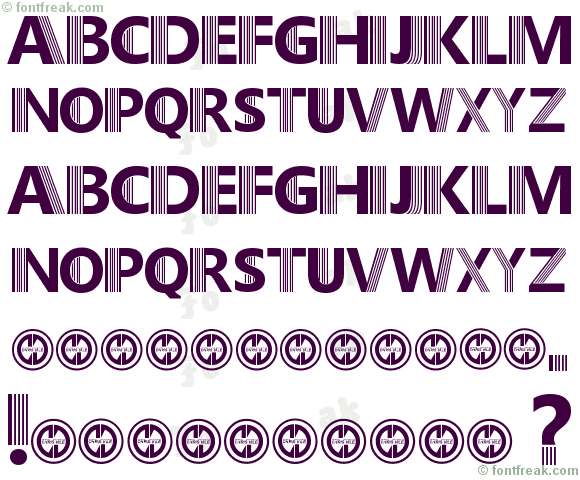
Side Effects
The Side Effects font by Chris Vile is a striking display typeface that commands attention. Released in 2018, this unique font features a series of bold, elongated vertical stripes that create a distinctive visual effect. The overall design showcases high contrast between thick and thin strokes, giving it a modern, edgy appeal. The generous spacing between letters enhances its readability while maintaining a strong presence, making it ideal for various impactful applications.
This font is particularly well-suited for use cases that require a touch of creativity and flair. It shines in environments such as movie posters, where the striking visuals can draw in audiences and evoke intrigue. Additionally, it works wonderfully for music album covers, where bold typography is essential for capturing the essence of the artist's work. Restaurant menus can also benefit from the Side Effects font, providing a memorable and stylish way to present food offerings. Graphic designers will find it a valuable addition to branding projects, where it can convey a modern vibe that aligns with contemporary trends.
In conclusion, the Side Effects font stands out due to its bold design and versatility. Its ability to convey a modern, artistic sensibility while remaining highly readable makes it an excellent choice for various creative endeavors. For those interested in enhancing their projects, the Side Effects font free download is a fantastic opportunity to elevate design work with a distinctive touch.